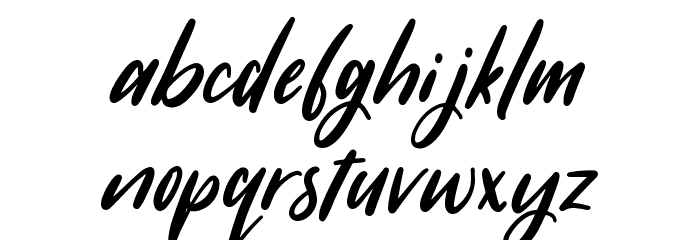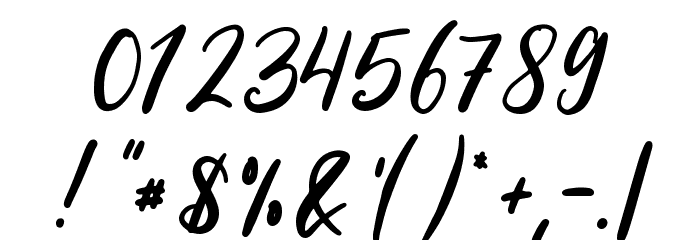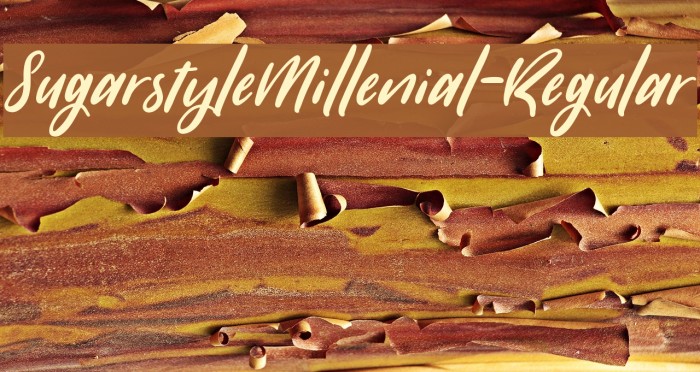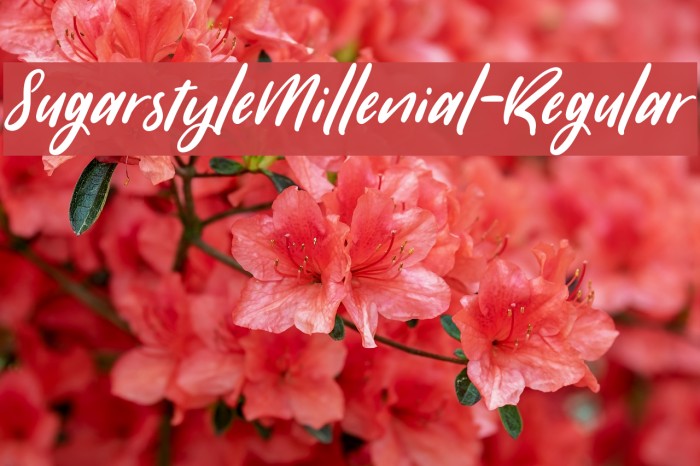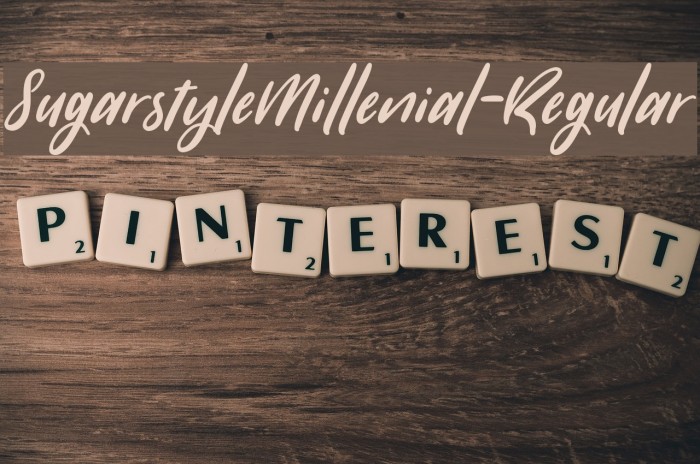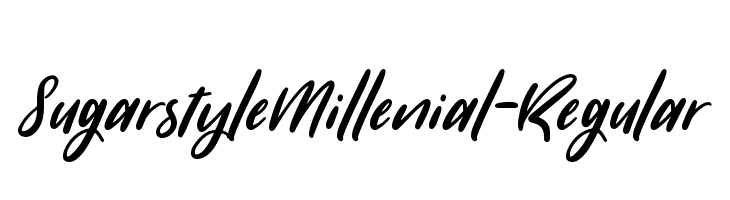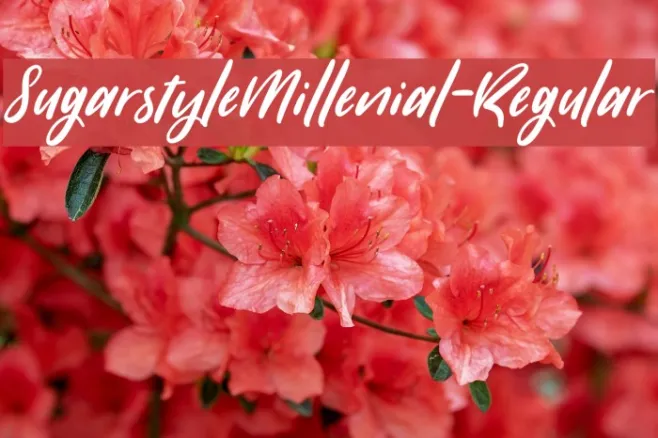
SugarstyleMillenial-Regular Font
This font features a lively and dynamic script style, characterized by its fluid and cursive letterforms. The strokes are smooth and connected, giving it a handwritten appearance that exudes elegance and personality. The uppercase letters are bold and slightly slanted, while the lowercase letters maintain a consistent flow with subtle variations in height and width. The numerals and special characters complement the overall style, maintaining the same energetic and playful feel. This font is perfect for adding a personal touch to any design project, making it ideal for creative and expressive applications.
A lively and dynamic script font with fluid, cursive letterforms.
- Proposed Projects: Ideal for wedding invitations, greeting cards, branding, and social media graphics.